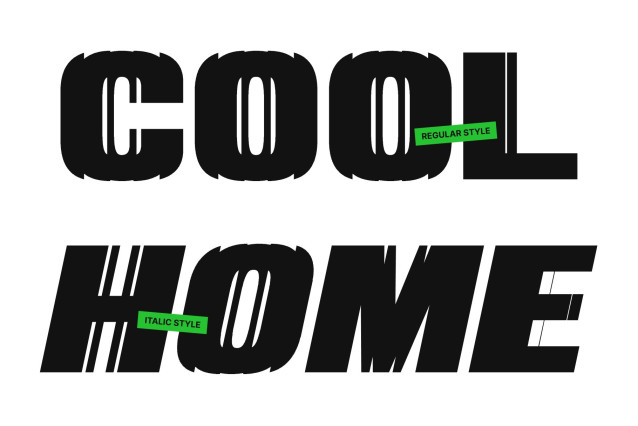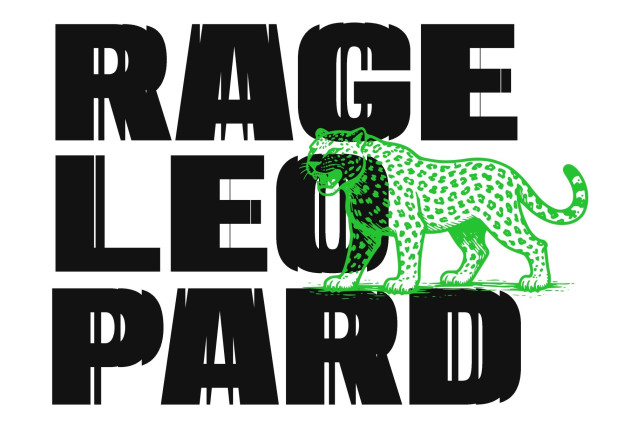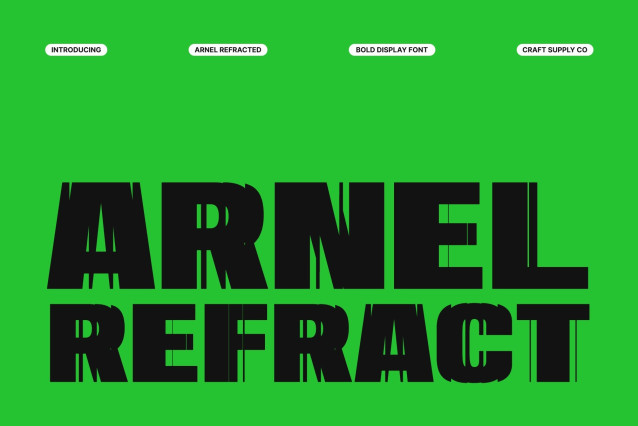
Arnel Refracted – Bold Sans Serif Font: Where Commanding Strength Meets Futuristic Refraction
Powerful Bold Forms with Confident Presence
This is a bold sans serif font designed to radiate strength, confidence, and commanding visual impact. Crafted as a powerful display typeface, its thick contemporary structure creates a bold identity filled with authority, clarity, and modern energy. Every character feels assertive and impactful, making the font perfect for designs that demand immediate attention and strong visual communication.
Refracted Effect with Futuristic Fragmentation
This font features glitch-inspired light refraction details that create fragmented cuts, geometric slices, and layered distortions across the letterforms. This futuristic effect introduces movement, digital depth, and experimental visual energy while preserving the font’s clean and bold structure. The result is a style that feels modern, technological, and visually striking.